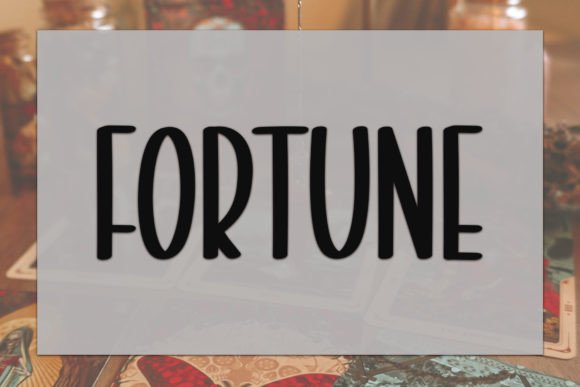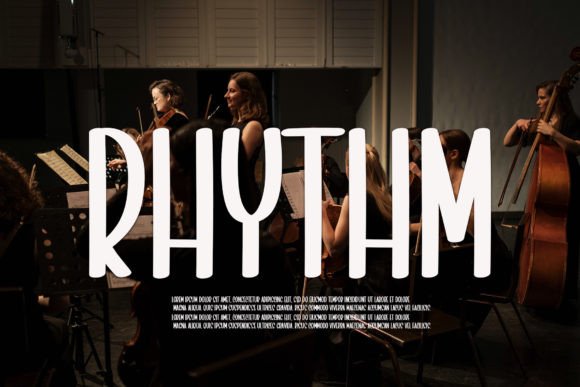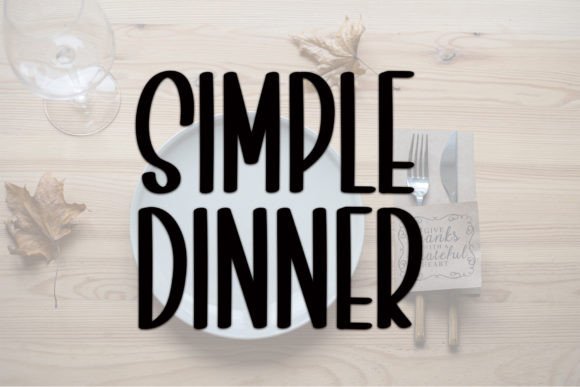
Introduction to Simple Dinner Font
Have you ever found yourself in a creative frenzy, surrounded by sketches and scribbles, searching for the perfect font to elevate your design? It’s that moment when you stumble upon a font that speaks to you, and everything else fades into the background. For designers, discovering the right font can be a game-changer, and today, we’re excited to introduce you to the Simple Dinner Font.
This beautiful handwritten font is more than just a design resource – it’s a statement piece that adds an elegant touch to any project. With its timeless style and incredibly distinct character, Simple Dinner Font is perfect for designers looking to create stunning and unique designs. Whether you’re working on a creative project or need a high-quality font for your next design venture, this font is sure to impress.
- Perfect for creative projects: The Simple Dinner Font is a great design resource for creative projects, offering a unique and stylish look.
Honest Review: Simple Dinner Font
I recently stumbled upon the Simple Dinner Font while searching for a design resource to elevate my creative project. I was drawn to its clean and modern aesthetic, making it a perfect fit for a food blog I’m working on.
- ✨ High quality glyphs that are crisp and clear
- ⚠️ Limited language support, which might be a concern for designers working with non-English texts
- ⚠️ Not ideal for complex, multi-line headings
Overall, I’m impressed with the Simple Dinner Font’s potential to add a touch of sophistication to any design project. While it may not be the most versatile font, it’s a great option for designers looking for a high-quality, modern font for their creative projects.
Use the Simple Dinner Font for headings and titles to add a touch of elegance to your design.
Experiment with different font sizes and colors to create a visually appealing design.
The Simple Dinner Font is perfect for:
Food blogs and recipes
Restaurant menus and signage
Food packaging and labels